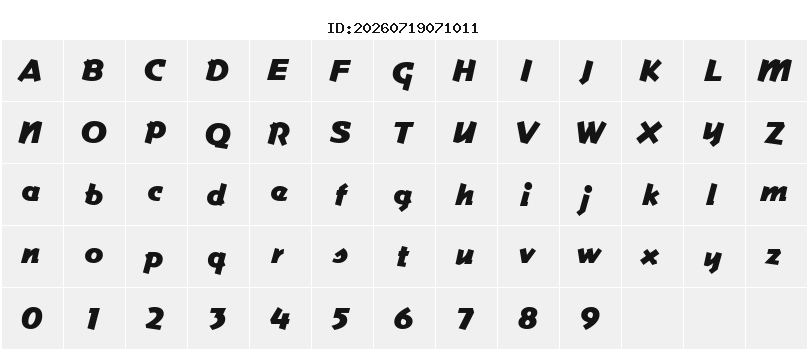
Commerce Fat Preview
• Font Name: Commerce Fat
• Full Font Name: Commerce Fat
About Commerce Fat.ttf
Commerce Fat.ttf is a modern, elegant sans-serif font designed for ultimate readability and visual harmony. Perfect for branding, headlines, web design, and print materials.